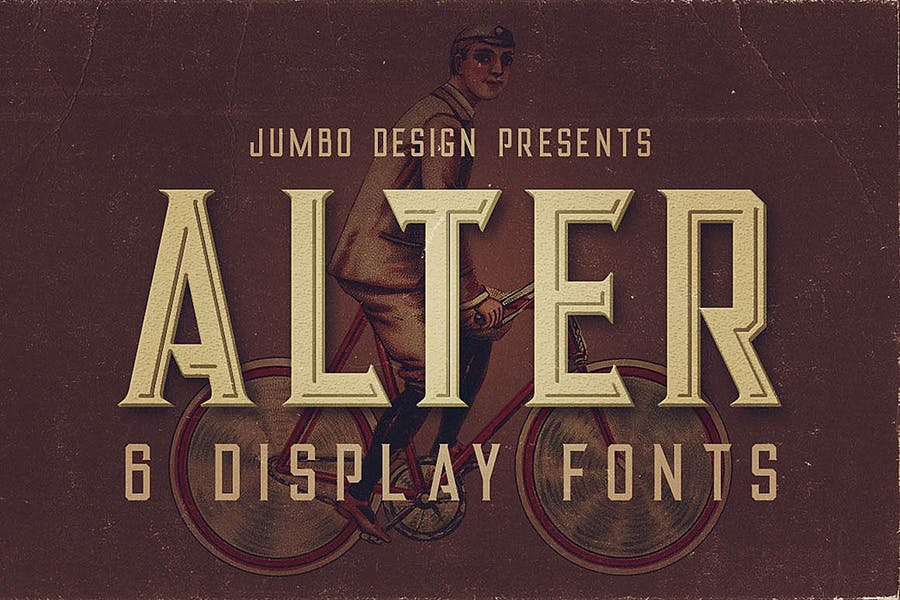
Alter - Vintage Style Font
Alter Vintage Style Font is perfect for antique shop branding, heritage restaurant signage, retro product packaging, vintage fashion labels, classic motorcycle marketing, nostalgic event posters, traditional craft brewery logos, and timeless lifestyle campaigns.
What makes Alter Vintage Style Font exciting is its authentic weathered character that captures the aged beauty and historical charm of bygone eras with genuine patina and time-worn elegance. The font features distressed letterforms with naturally worn edges and vintage proportions that evoke old photographs, weathered signage, and the honest craftsmanship of earlier generations. Its distinctive aged styling and nostalgic appeal communicate authenticity, heritage, and enduring quality, making every message feel discovered in an old trunk and treasured for its historical significance.
The Alter Vintage Style Font family includes regular weight with uppercase and lowercase letters, numerals, punctuation marks, and special characters. Premium versions often feature additional distressed alternates and period-appropriate decorative elements that enhance the authentic, vintage aesthetic perfect for heritage and retro applications.
This captivating vintage typeface brings instant nostalgia and historical credibility to any heritage-focused project. Alter Vintage Style Font Free Download offers exceptional value for businesses seeking to communicate traditional craftsmanship, authentic heritage, and time-tested quality to customers who appreciate vintage aesthetics and historical authenticity.
The weathered character of Alter Vintage Style Font makes it particularly effective for vintage retailers, heritage brands, and traditional craft businesses. Its excellent readability ensures historical information and product descriptions remain clear while maintaining the distinctive aged aesthetic that appeals to customers seeking authentic vintage experiences and quality craftsmanship.
Heritage brand marketers appreciate how Alter Vintage Style Font effortlessly conveys authenticity and historical depth. The font's weathered proportions and aged details create trustworthy brand materials that establish connections with audiences who value traditional methods, historical preservation, and the enduring appeal of vintage craftsmanship.
The versatile nostalgia of this typeface extends to historical museums, vintage furniture restoration, and traditional manufacturing where heritage authenticity enhances brand credibility. Alter Vintage Style Font Free Download provides creative professionals with an essential tool for developing memorable, heritage-driven designs that resonate with audiences who embrace vintage style, historical preservation, and the authentic character of time-tested craftsmanship in their lifestyle and purchasing decisions.